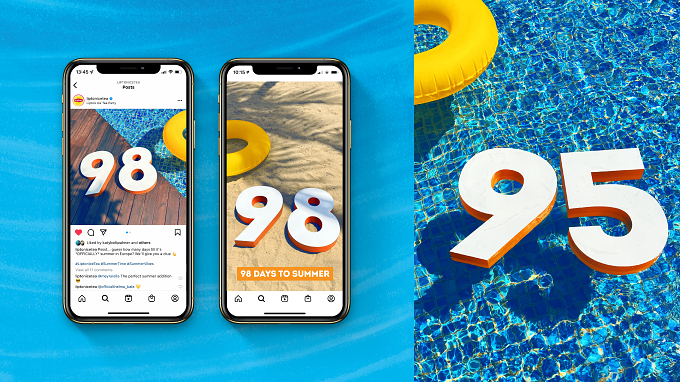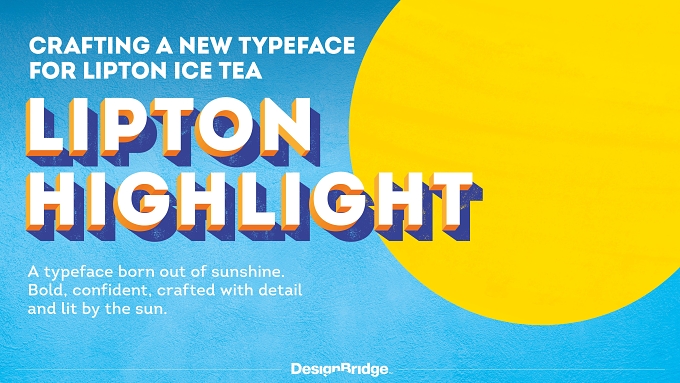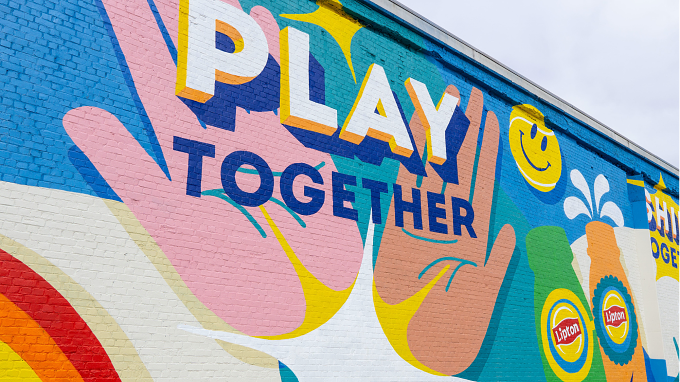
We created an impactful, confident new typeface for Lipton Ice Tea - born out of the sunshine synonymous with the Lipton brand, and crafted with detail. Lit by the bright sun and emboldened by shadow, we use the Highlight typeface to speak confidently through distinctive, unmissable headings. We play with multiple cuts, colours, circularity and scale to add pace and impact to Lipton’s communications. Live, adaptable and globally implemented, the Lipton Highlight Typeface is bold rather than brash, confident without shouting, perfectly encapsulating the brand’s essence of natural, sunny optimism.
Despite having a bespoke cut of Intro, Lipton Ice Tea lacked an iconic font that felt ownable to the brand which was suitable for use throughout the brand world globally. We were briefed to create an impactful typeface that would ensure a level of recognisability and consistency across numerous markets, languages, alphabets and product flavours.
Our solution was to create a font which is reflective of the brand’s bright optimistic image and purpose that can adapt to different languages and alphabets whilst retaining its recognisable essence and sunshine feel. Rather than utilising several fonts within the brand world, we playfully combine use of multiple cuts with colour and scale to add pace and impact across a diverse global brand world.
Lipton: Highlight Typeface